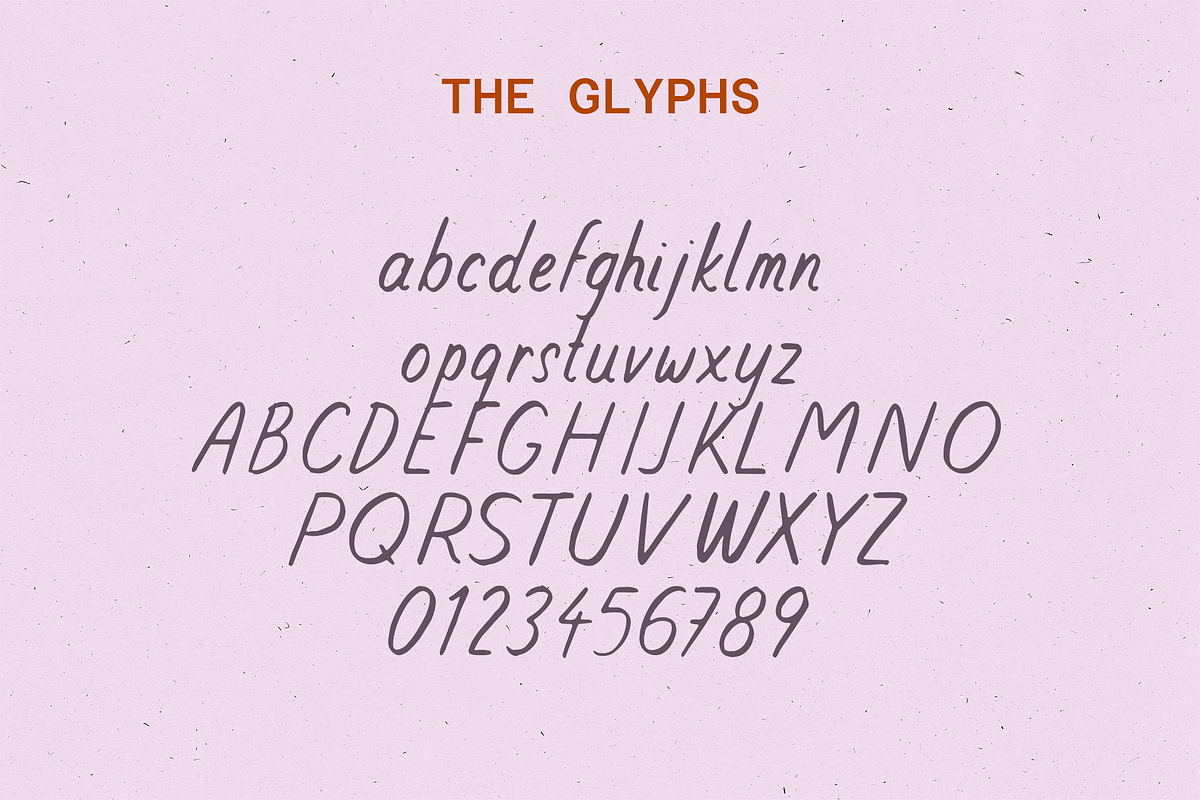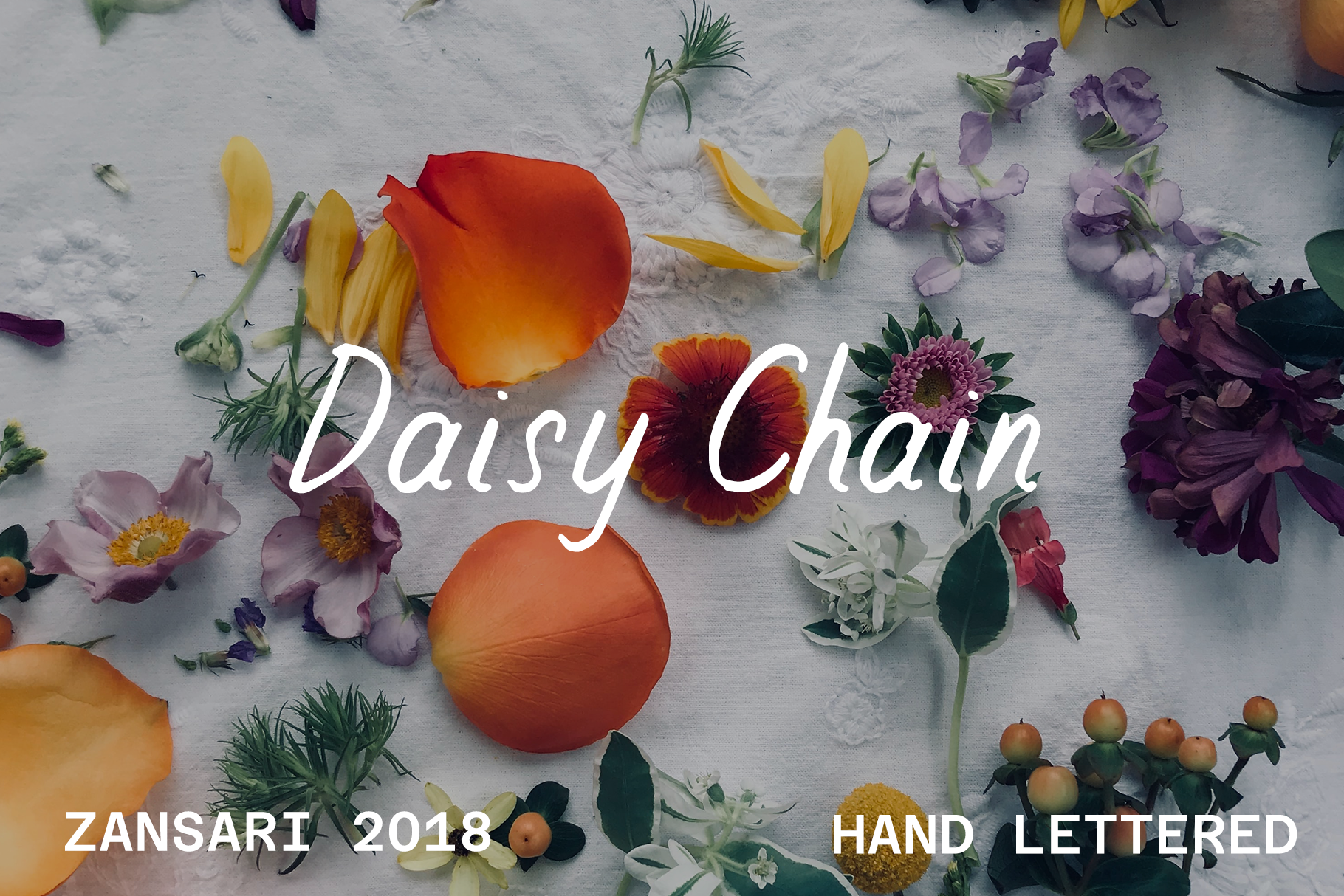
Daisy chain brush font
Daisy Chain brush calligraphy font is a simple and relaxed styled font. The characters were hand painted, then scanned and vectorised into a digital font file. Daisy Chain brush font was designed by Zansari font foundry in Auckland, New Zealand